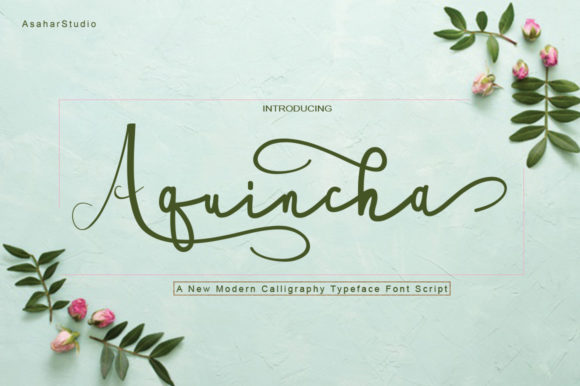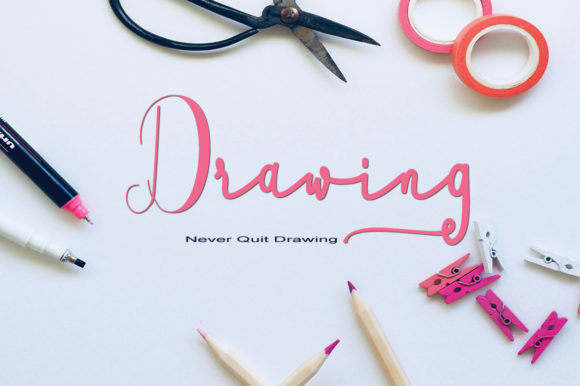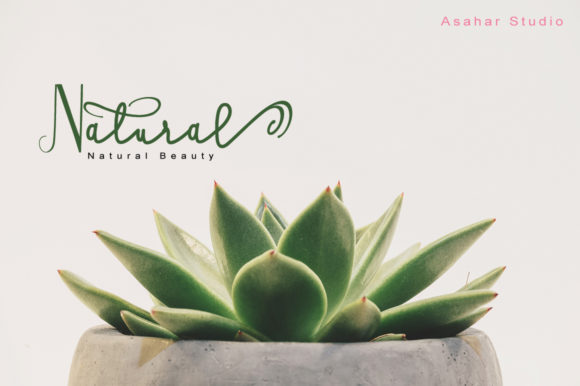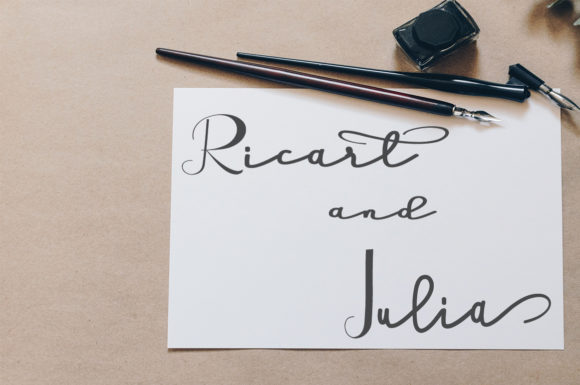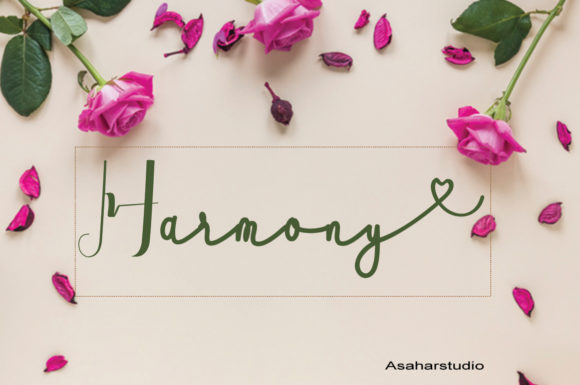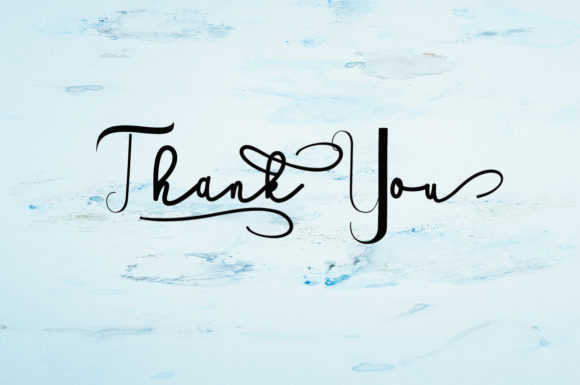
Aquincha Font
About Aquincha Font
Aquincha is a bold and fresh script font that features gorgeous swashes. This beautiful calligraphy font will add a fancy feel to any design project!